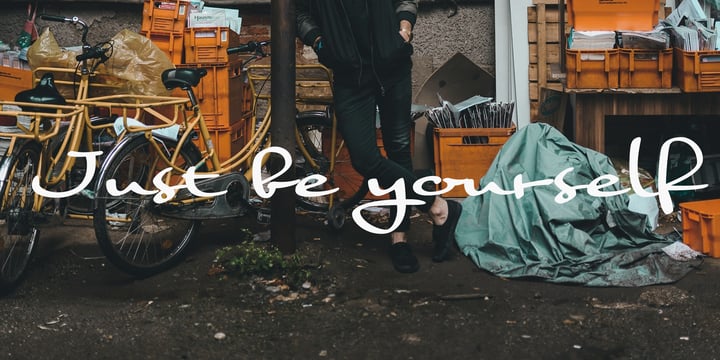
Nothing
Nothing™ by Dharma Type
Nothing Font Family was designed by Ryoichi Tsunekawa, and published by Dharma Type. Nothing contains 1 styles and family package options. More about this family
About Nothing Font Family
The real handwriting script. Very powerful impression because of its heavy, wide and speedy shape. Award Winning No. 1 font 2007 at MyFonts and Rising Star. There is one more script designed by in the same concept. -Banana -Nothing
Designers: Ryoichi Tsunekawa
Publisher: Dharma Type
Foundry: Dharma Type